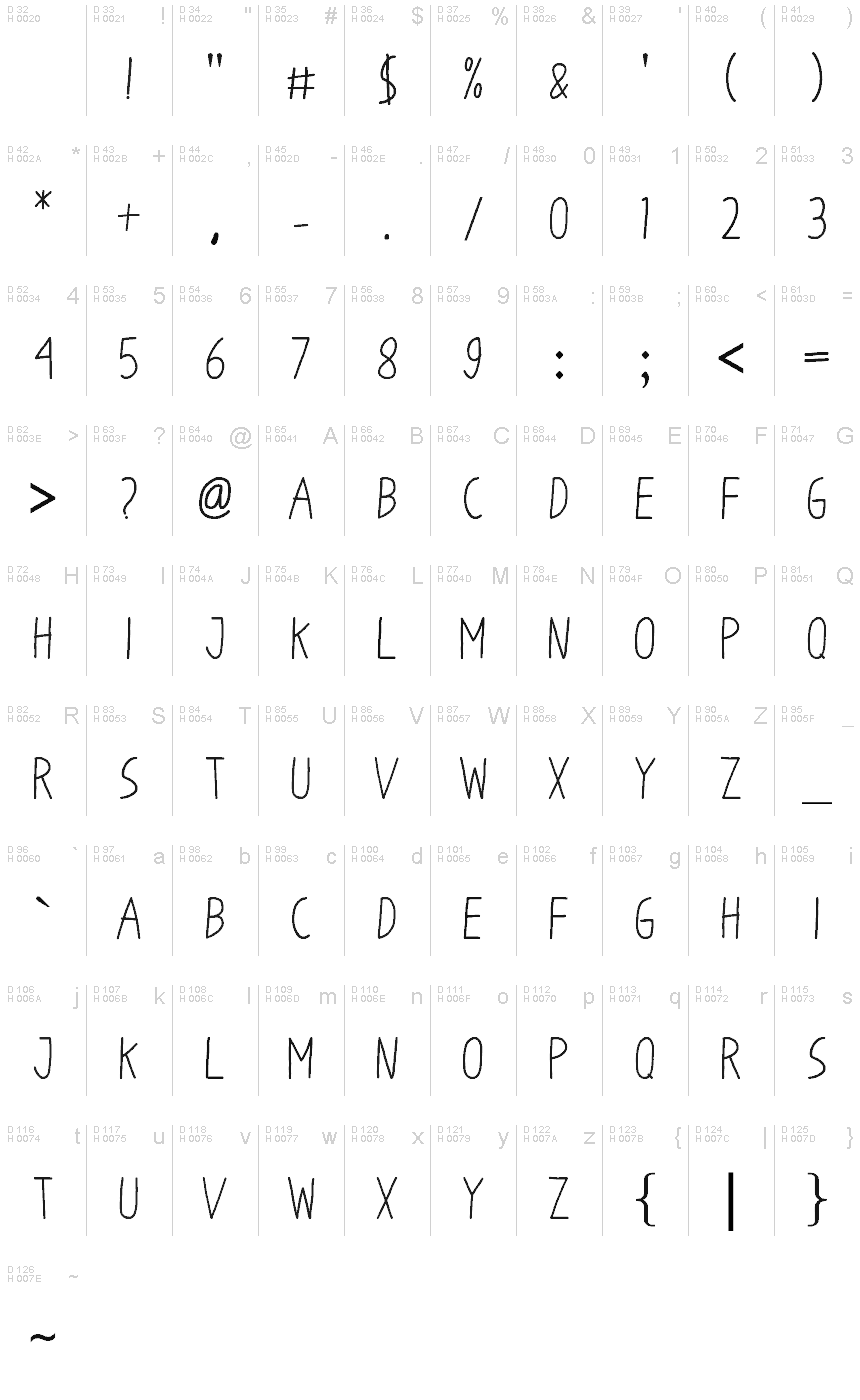
Odum Odum
Odum Odum is a captivating handwritten font that exudes a sense of effortless elegance. Crafted with a delicate touch, this light and condensed typeface boasts a fluid, organic quality that immediately captures the eye. The playful, interlocking strokes convey a whimsical charm, making it an ideal choice for various design applications, from branding and packaging to editorial layouts and digital interfaces.
Odum Odum's versatility extends beyond its aesthetic appeal, as its condensed width allows for seamless integration into compact design spaces. This font's unique character and versatility make it a compelling addition to any creative's typographic toolkit.